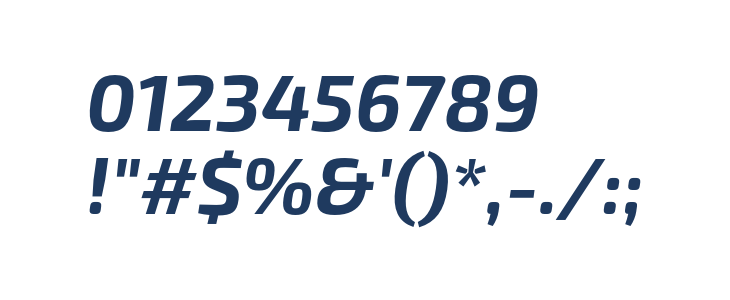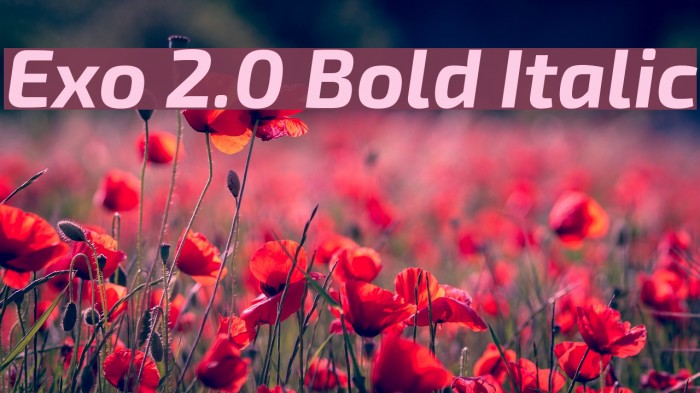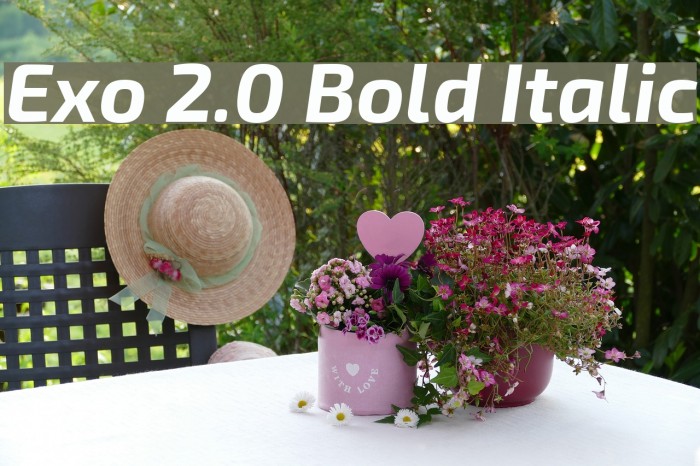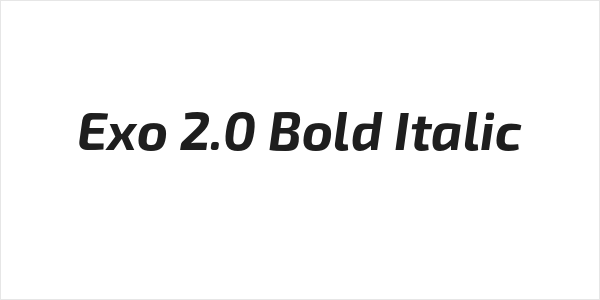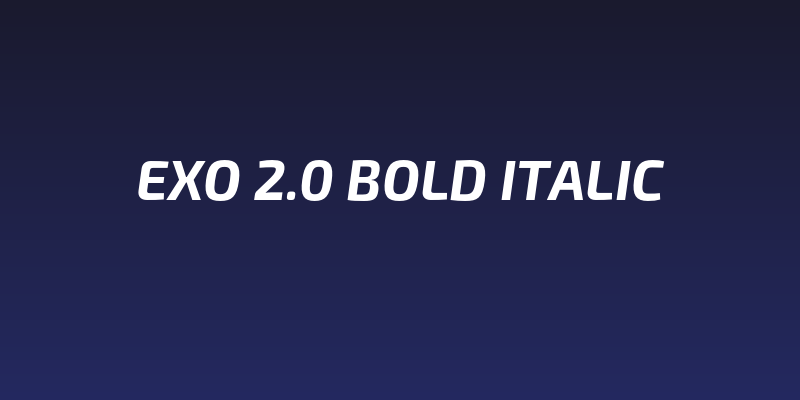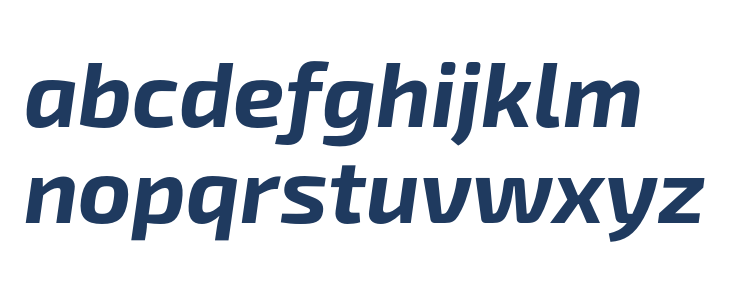
Exo 2.0 Bold Italic Font
Exo 2.0 Bold Italic Description
This font features a modern and sleek design with a bold and italicized style. The characters are slightly condensed, giving it a compact appearance while maintaining readability. The strokes are consistent in thickness, providing a uniform look across all characters. The italic slant adds a dynamic and forward-moving feel, making it suitable for contemporary design projects. The numerals and special characters are well-integrated, matching the overall aesthetic of the alphabet. This font is versatile, ideal for both digital and print media.
| Use Case | Headlines, Logos, Digital media |
| Proposed Projects | Ideal for branding, advertising, digital media, and modern print layouts. |